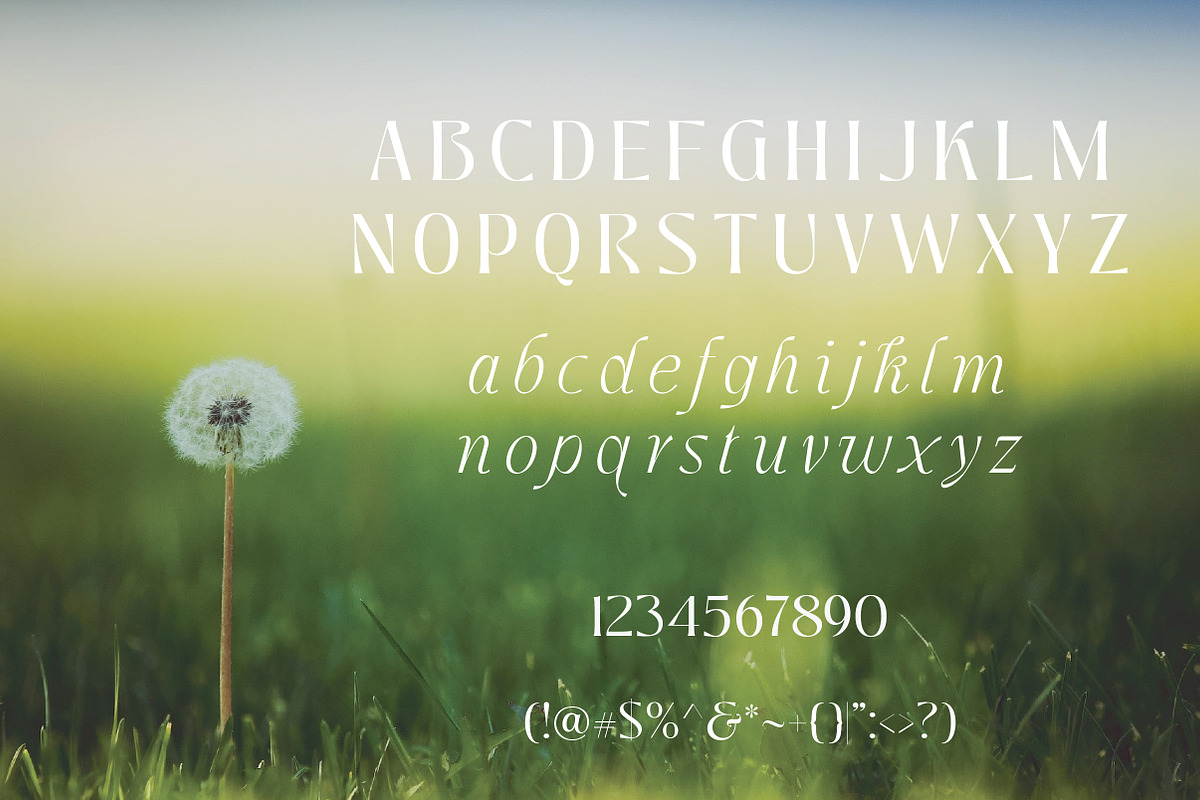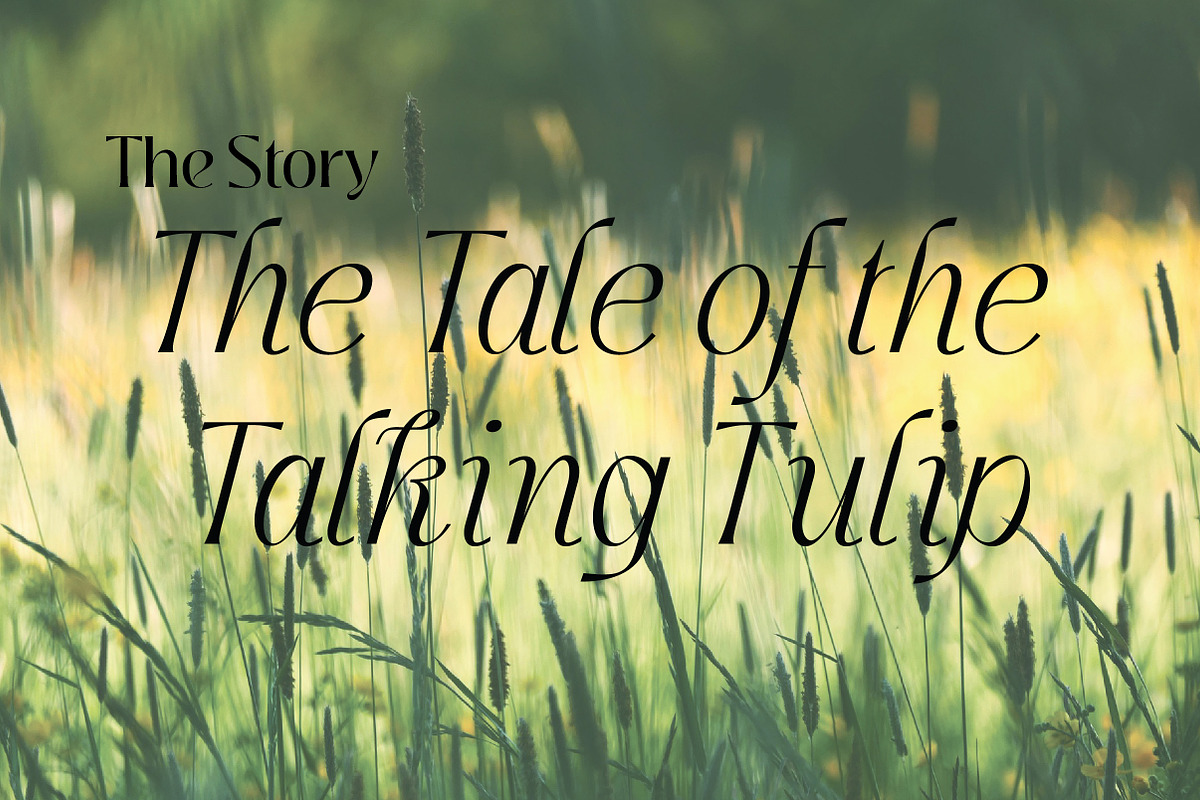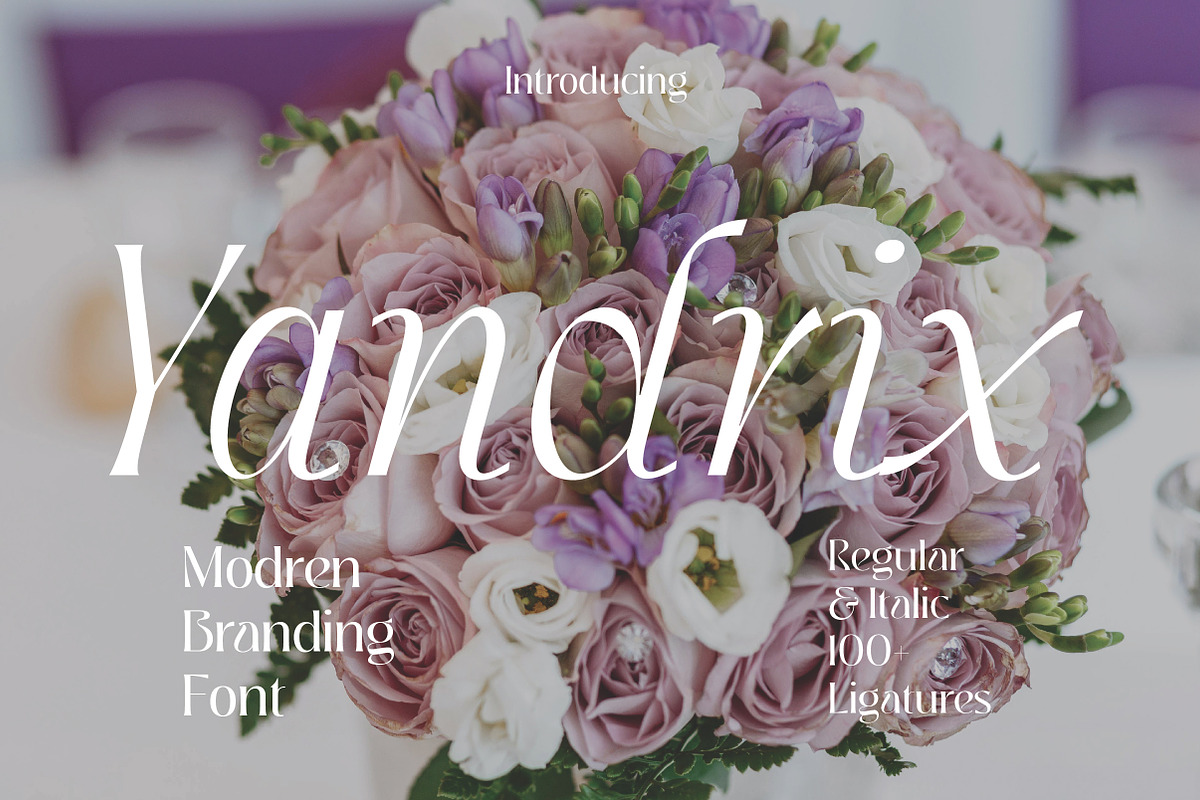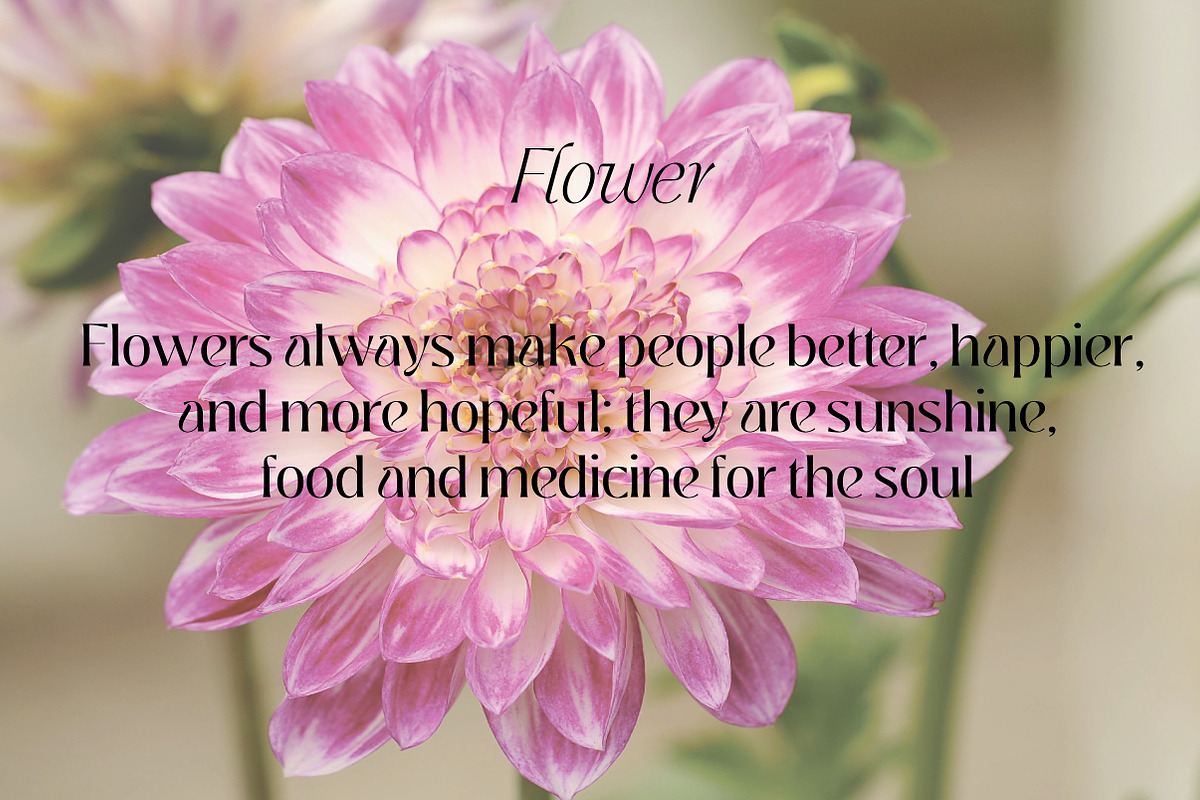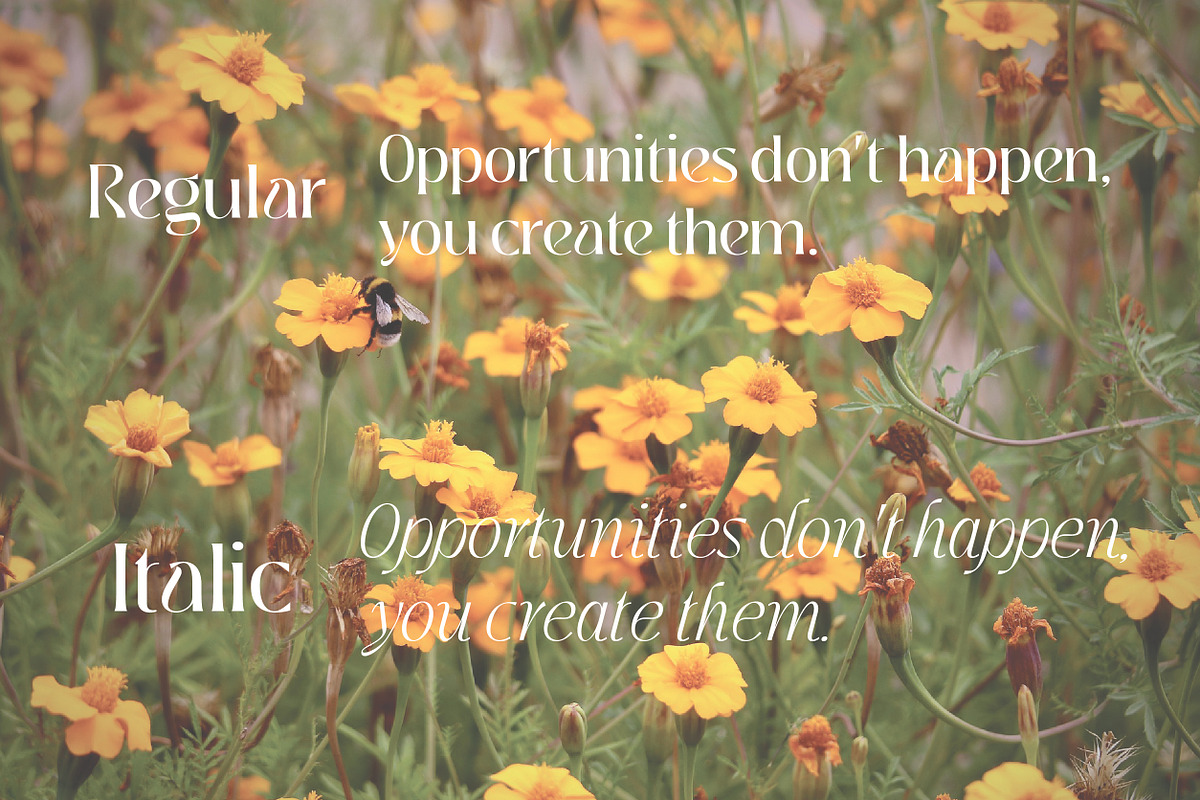
Yandrix | Serif Regular & Italic
Yandrix is a beautifully designed serif typeface that blends traditional elegance with modern versatility. Featuring both Regular and Italic styles, it offers clean lines, classic proportions, and subtle details that make it suitable for everything from sophisticated branding to editorial design and high-end packaging.
The Regular style brings clarity and refinement, while the Italic style adds a graceful, flowing touch—ideal for emphasis and creative expression. Together, they provide a versatile set that works beautifully in both display and text settings.
Yandrix is the perfect serif family for designers who appreciate timeless beauty, editorial elegance, and polished readability.